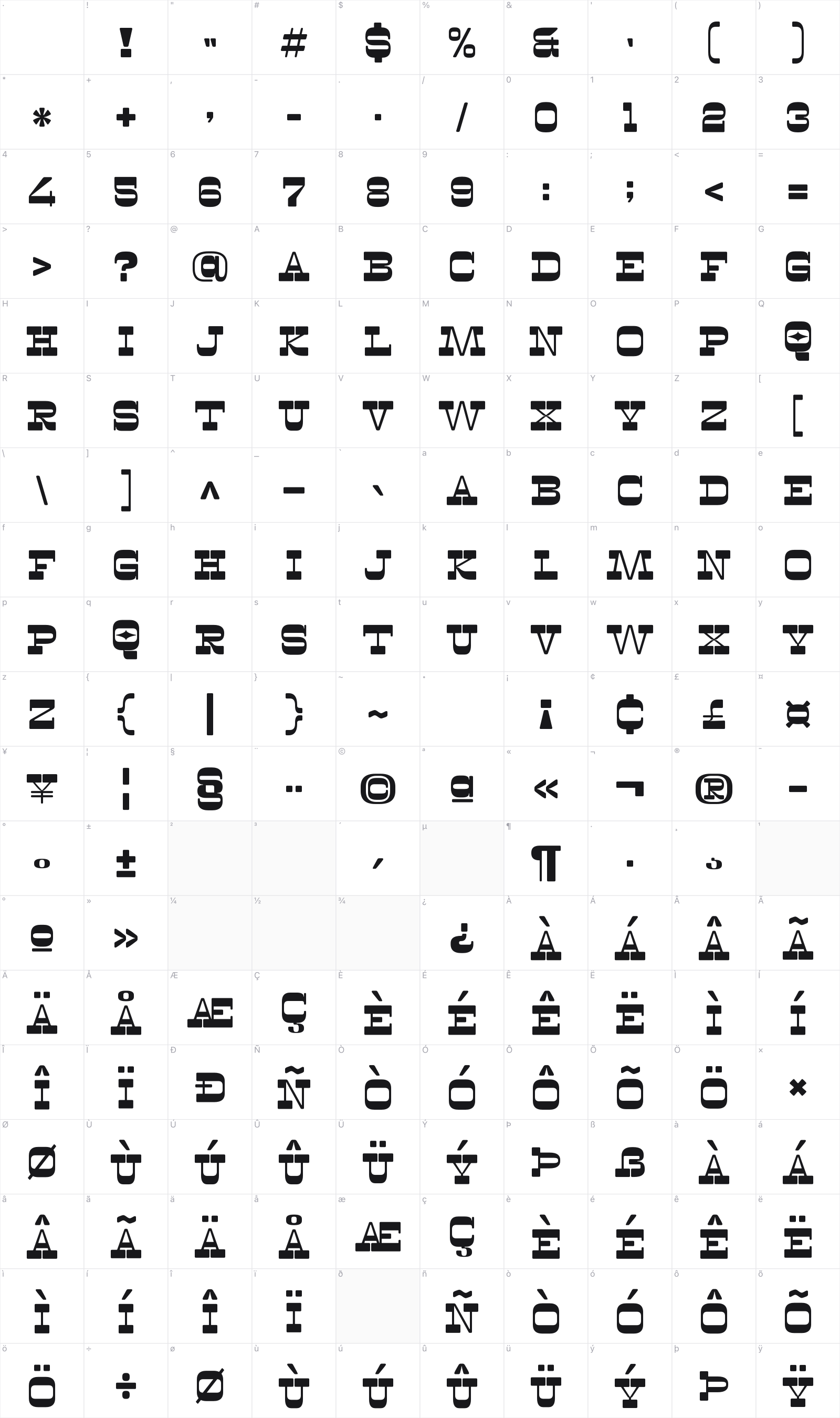
Rise
Rise is a heavy stencil slab-serif with thick, squared stems interrupted by cutout breaks that divide each character into segmented blocks. The construction draws on military stenciling and Americana traditions, giving it a rugged, commanding presence. Works best at large sizes where the stencil detail reads clearly.